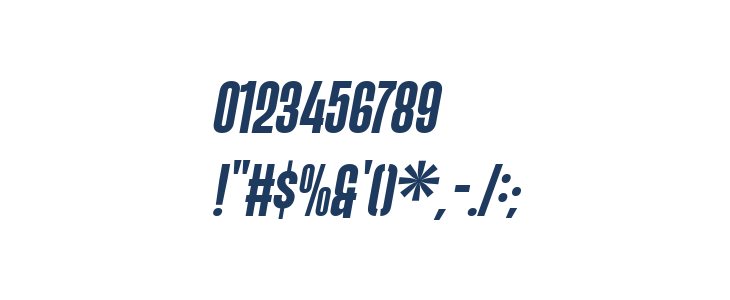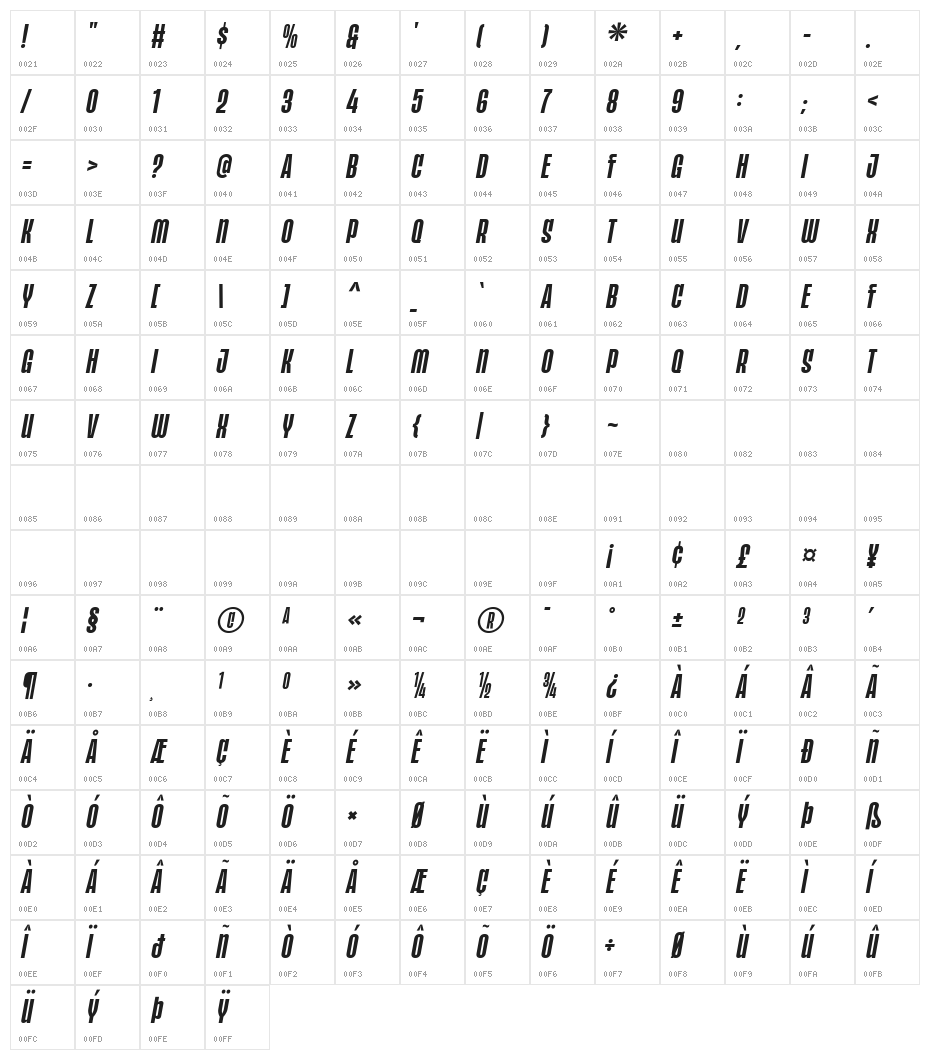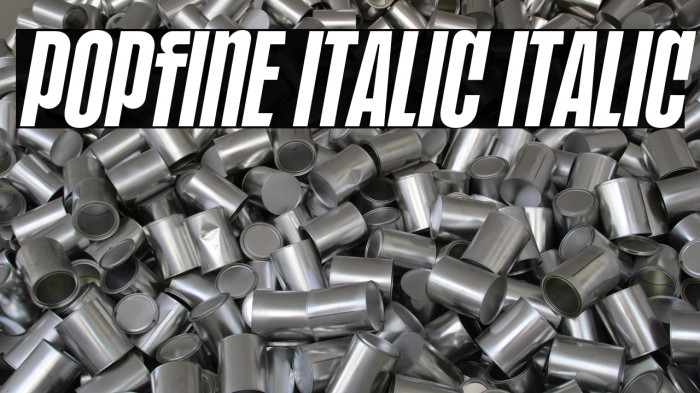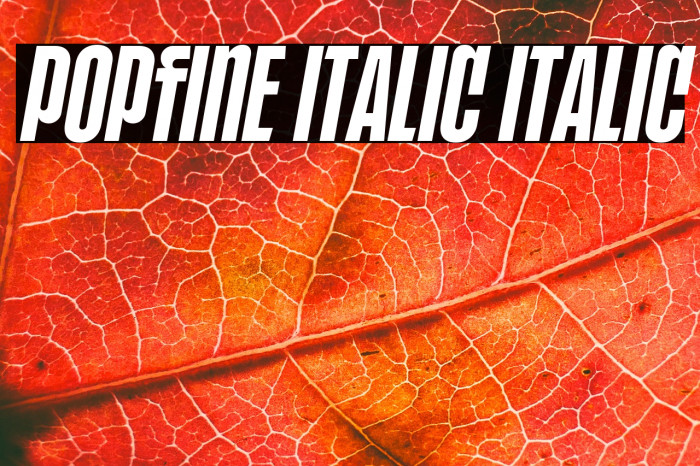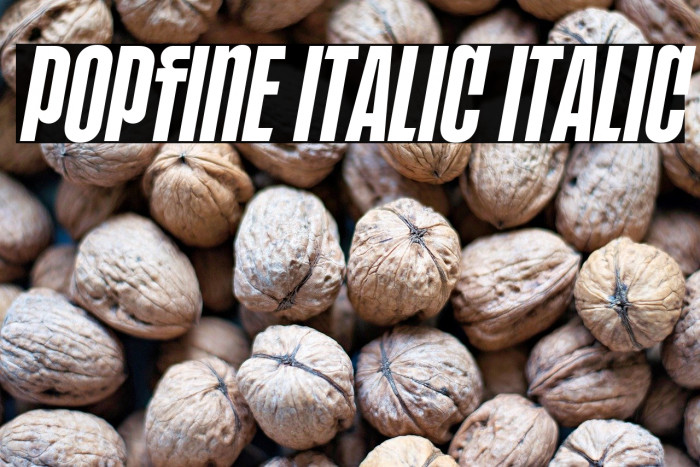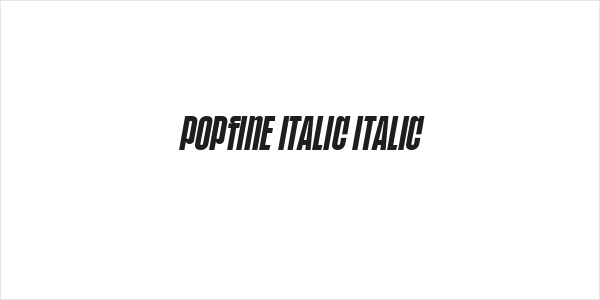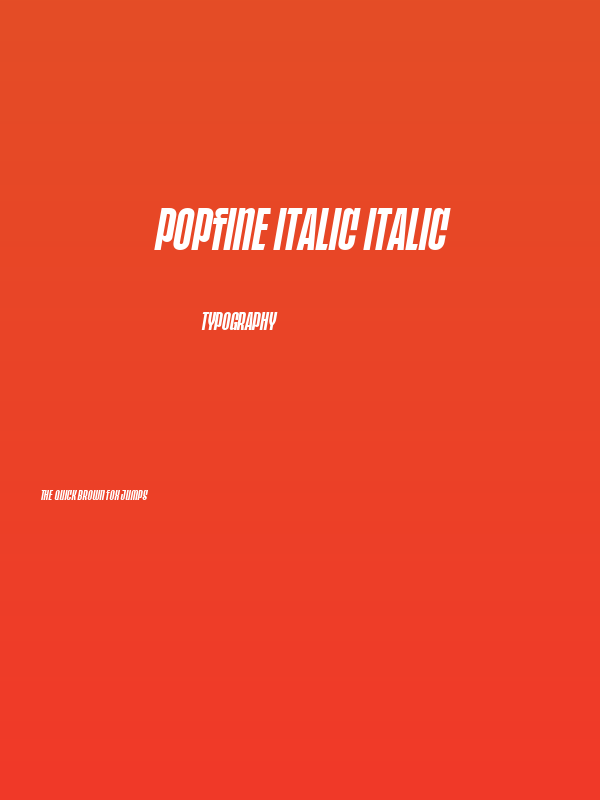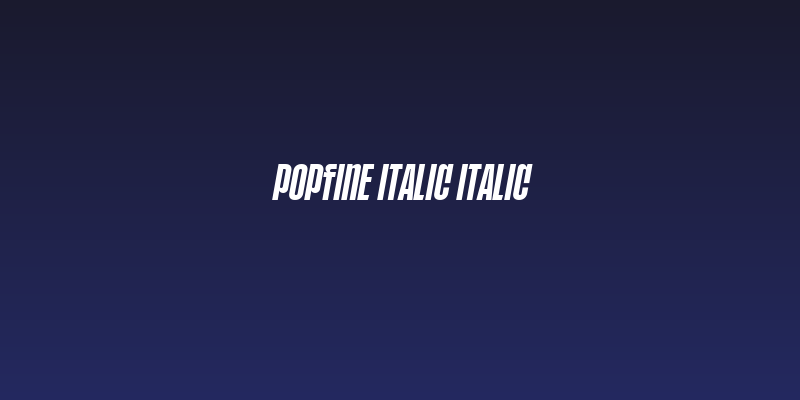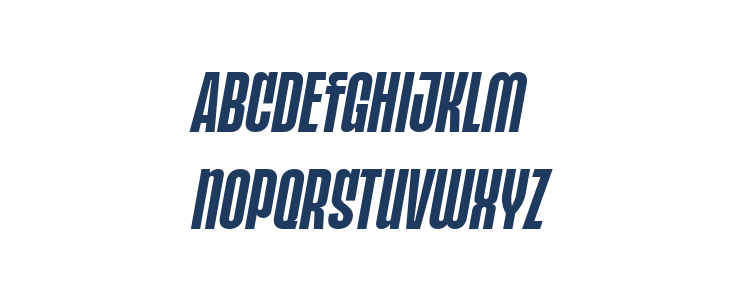
POPFINE Italic Italic Font
POPFINE Italic Italic Description
This font features a bold and dynamic italic style, characterized by its strong, slanted letterforms that convey a sense of movement and energy. The uppercase and lowercase letters maintain a consistent stroke width, contributing to a cohesive and impactful appearance. The numerals and special characters are designed to complement the alphabet, ensuring readability and visual harmony. The font's overall design is modern and assertive, making it suitable for projects that require a bold statement.